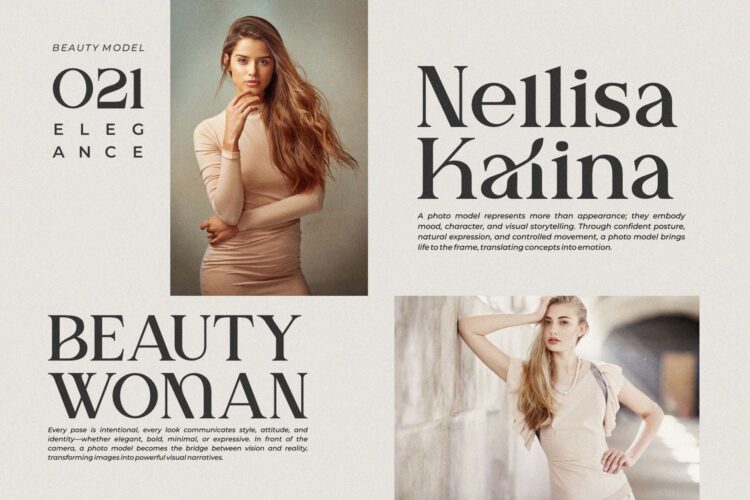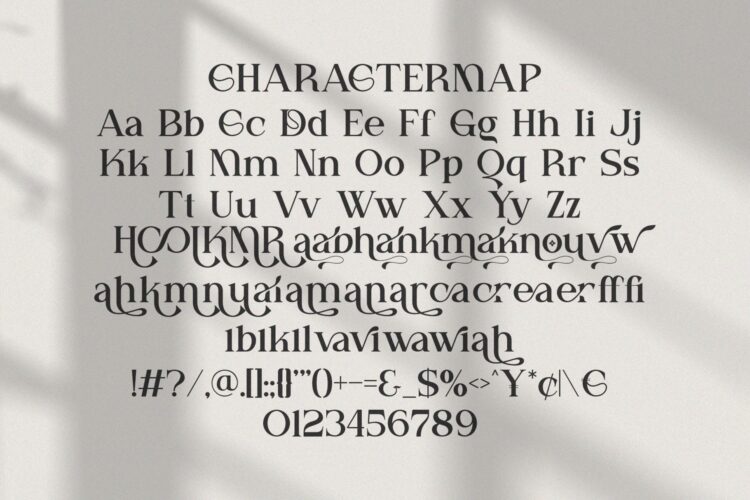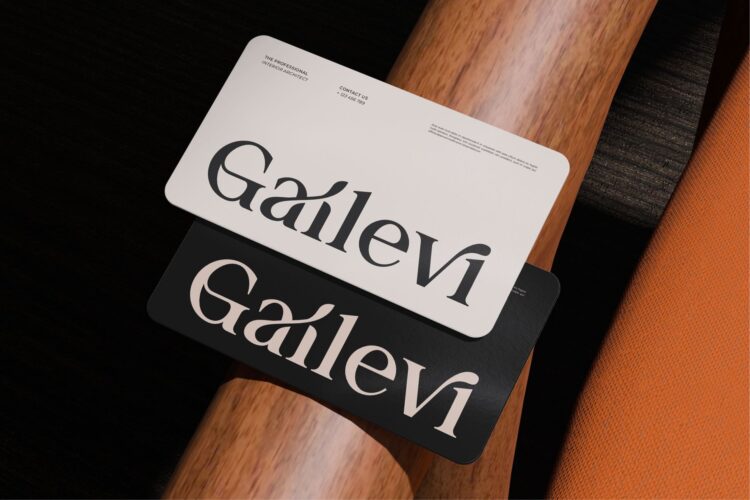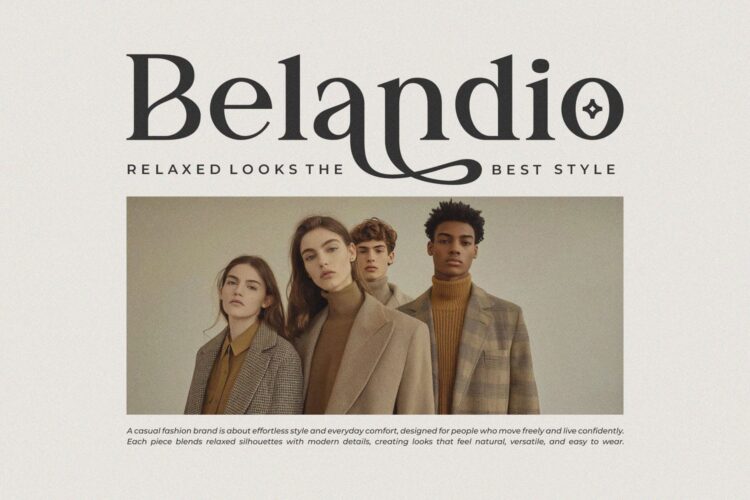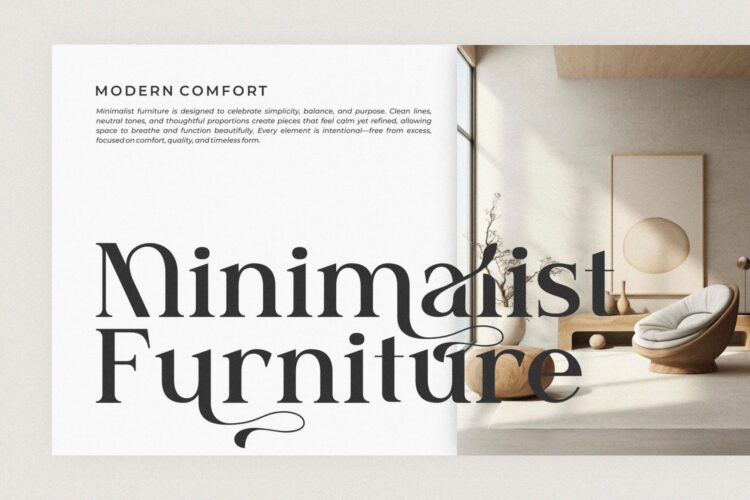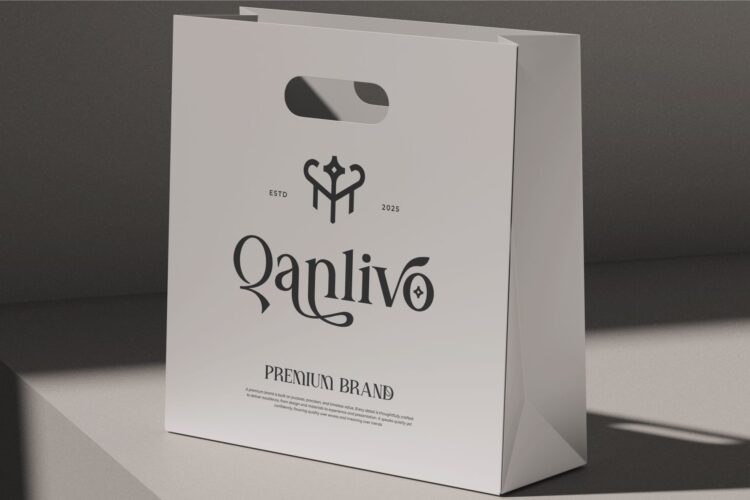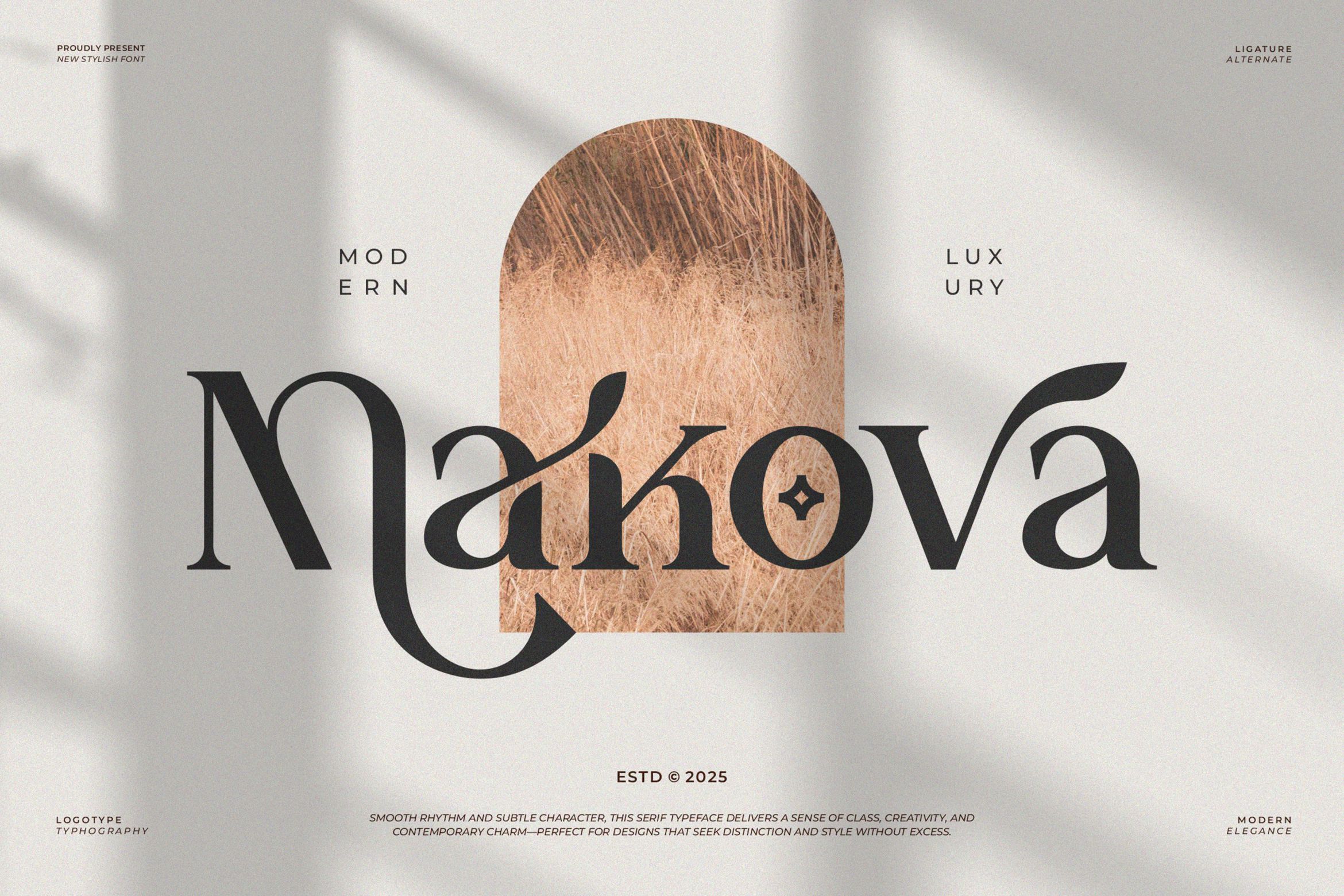
Makova Serif is a modern and minimalist font type for all branding and logo designs. This modern and minimalist Serif font has a beautiful character. This font is suitable for invitation card designs, cool logos, movie titles, movie names, business cards, book titles, brand names, and various other designs. Makova Serif is a smooth serif font that exudes sophistication and the moment. Its stylish ligatures make this font a perfect partner for any project.